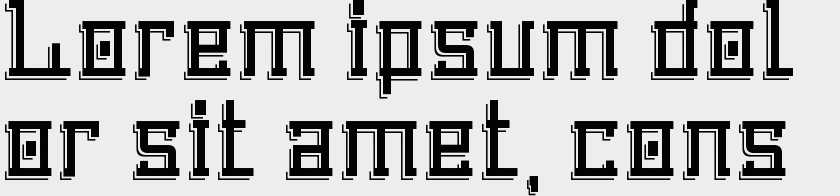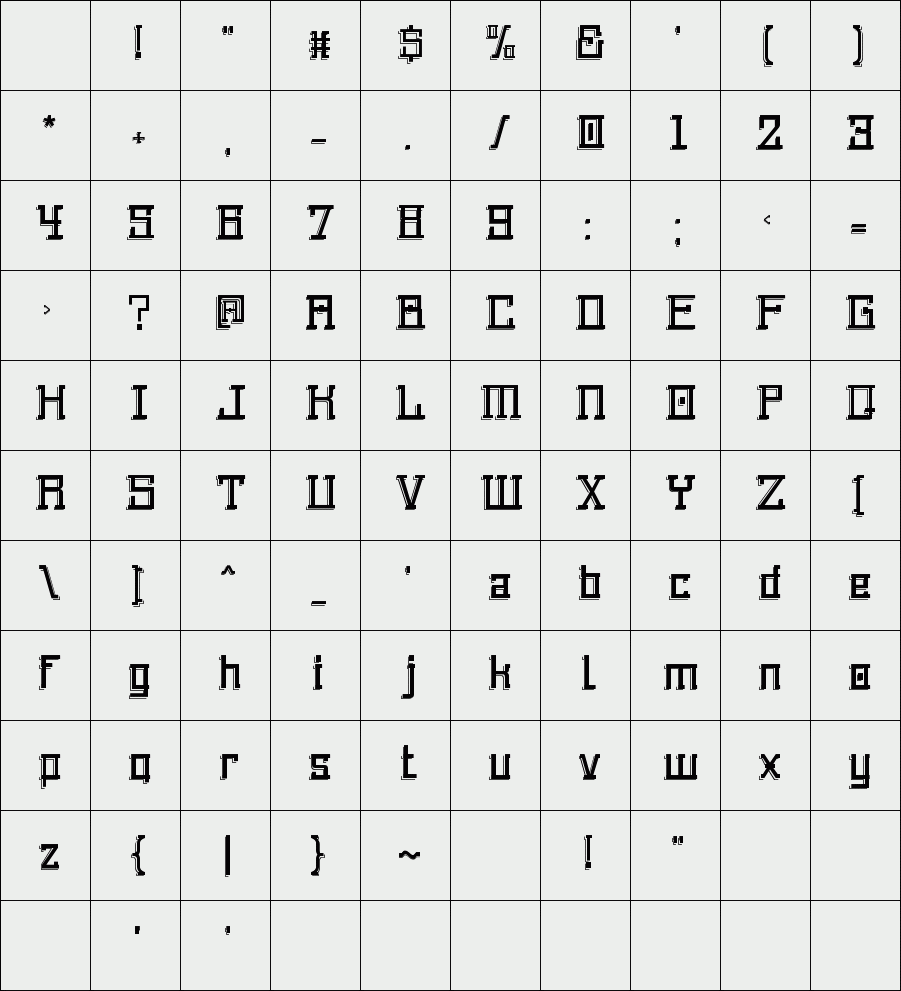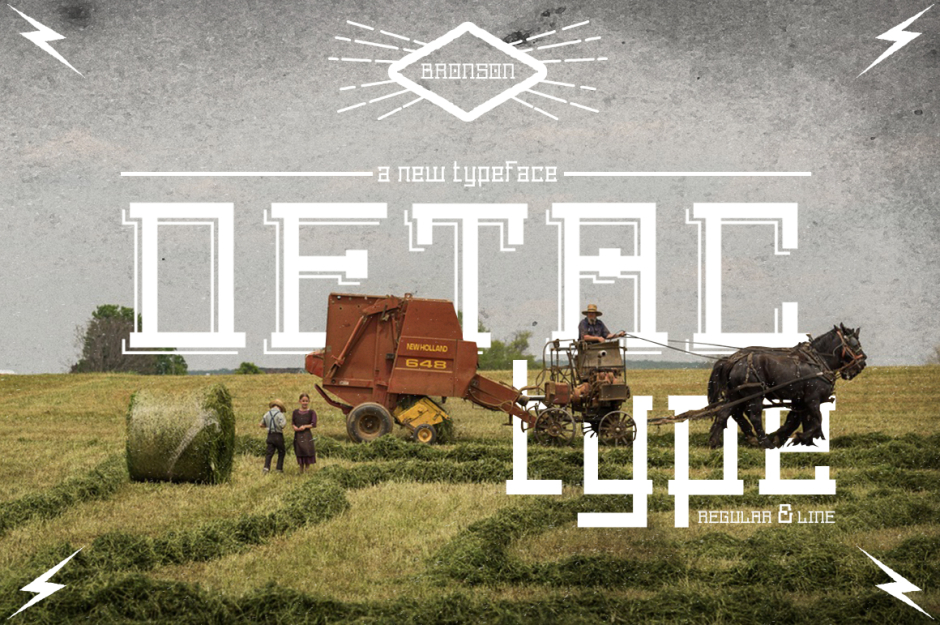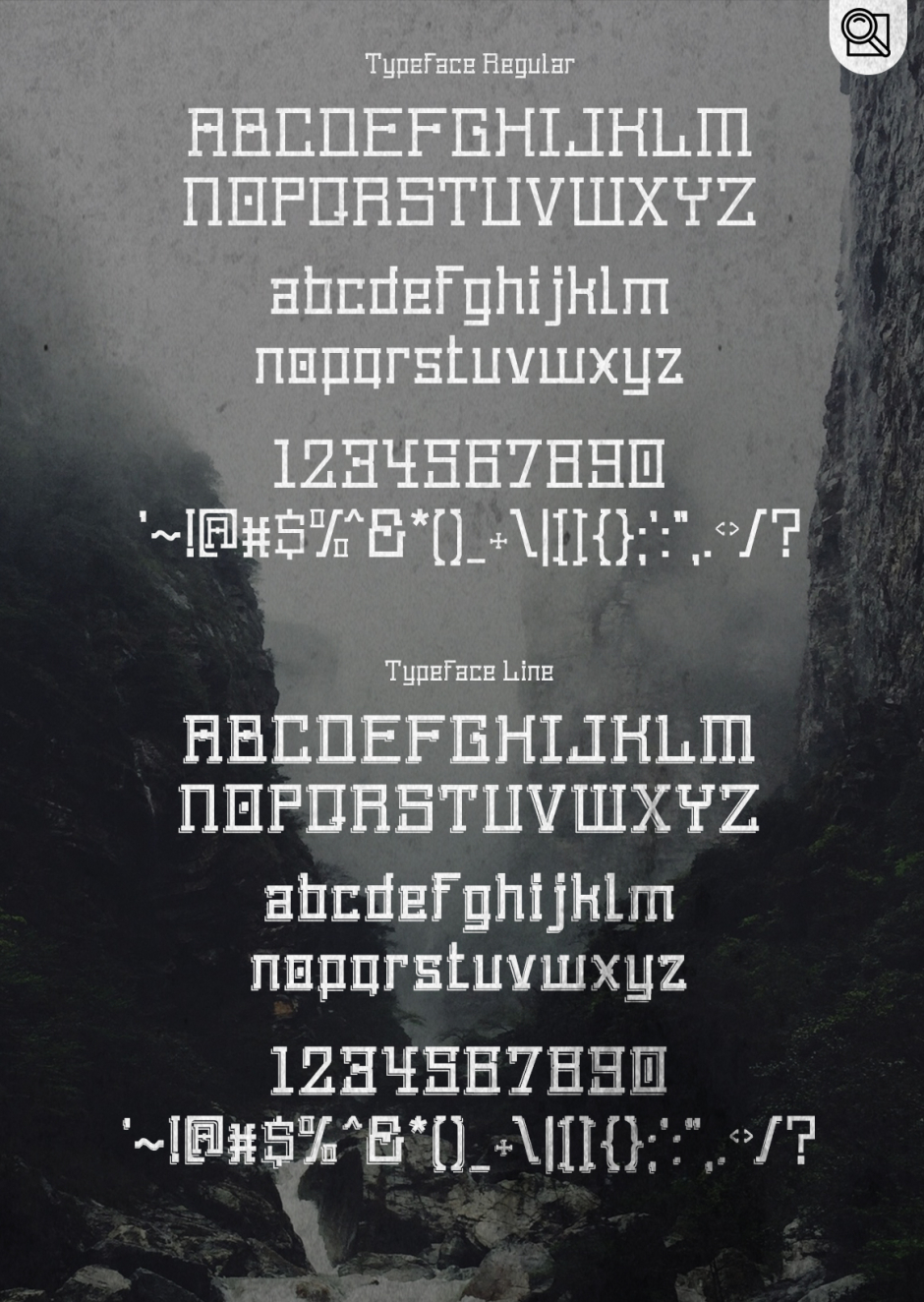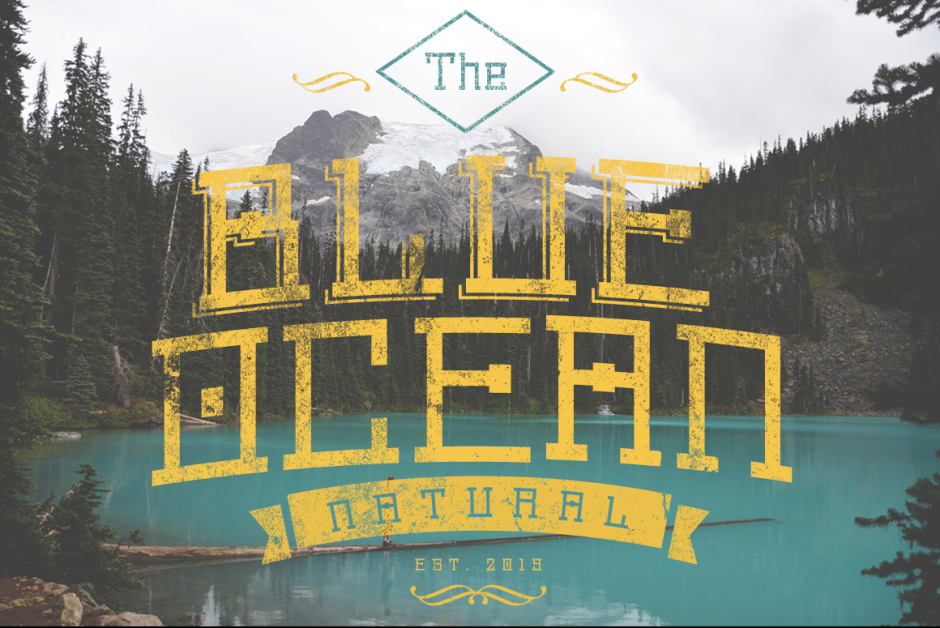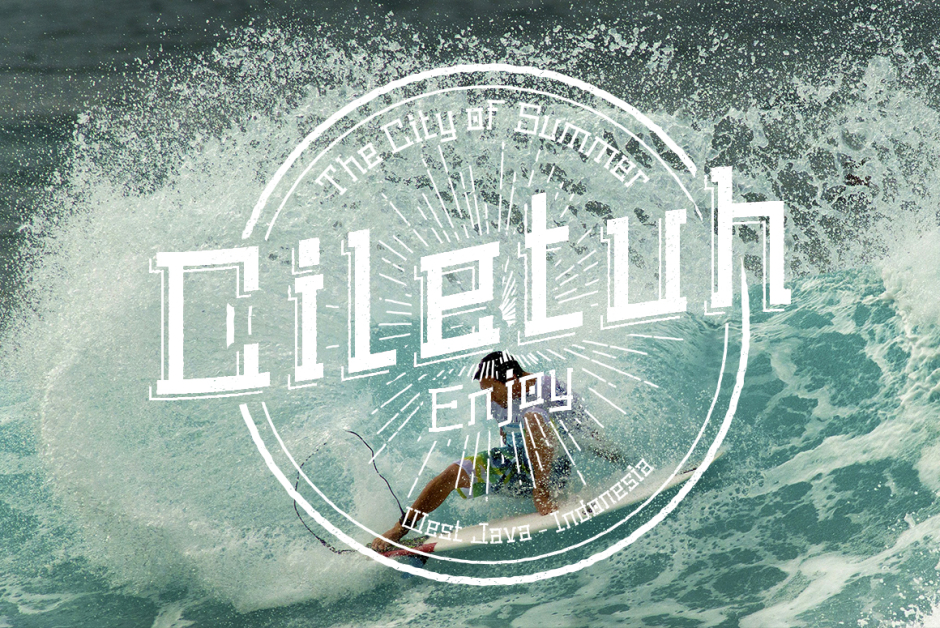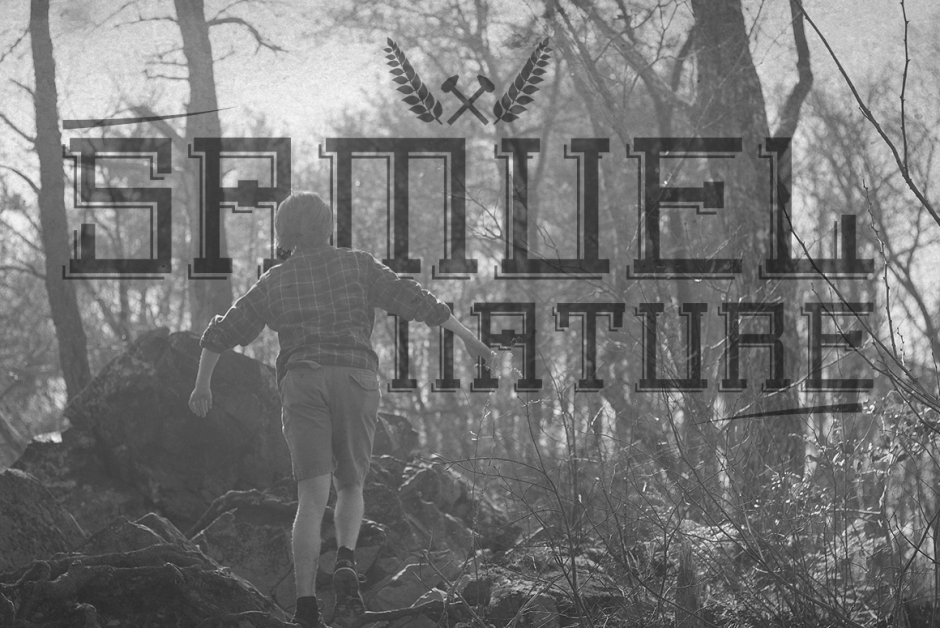
Detac
Detac inspired by the vintage lettering. Detac typeface includes a full set of capital and lowercase letters, numerals and punctuation.Could help to good display, uses for labeling, clothing, poster, film title, gigs, or cover album and etc.
Designer: Aris Bronson